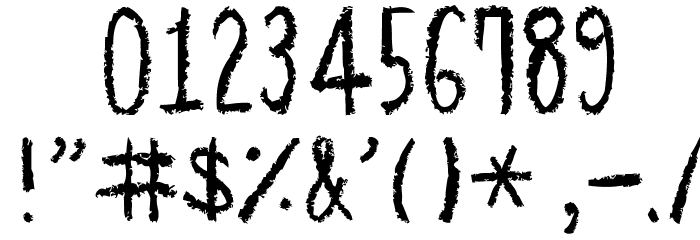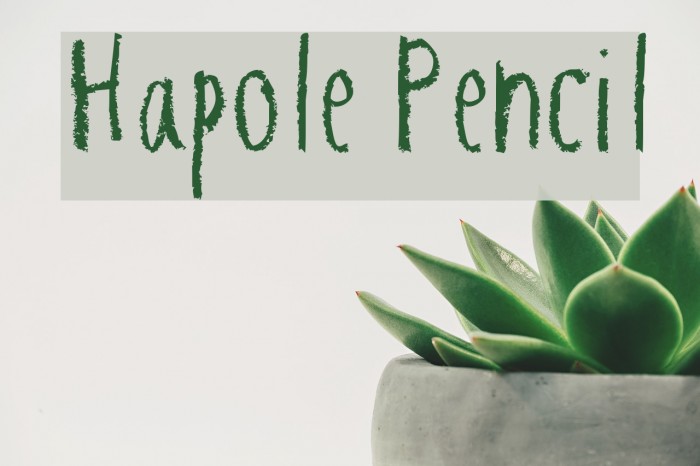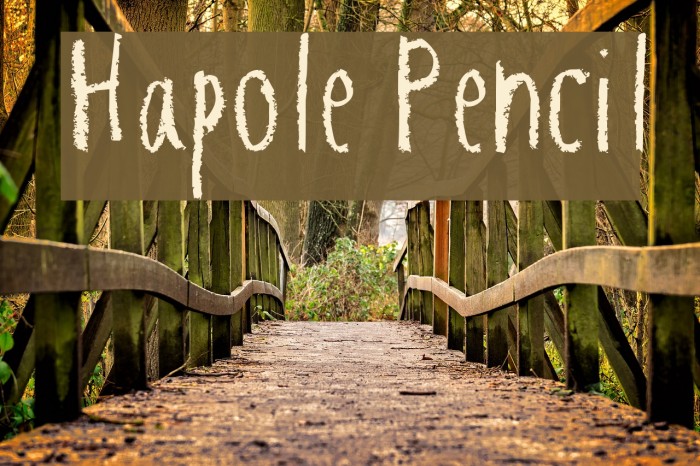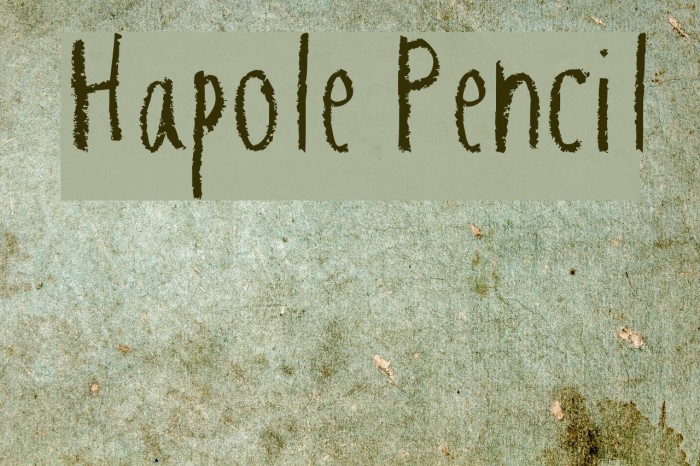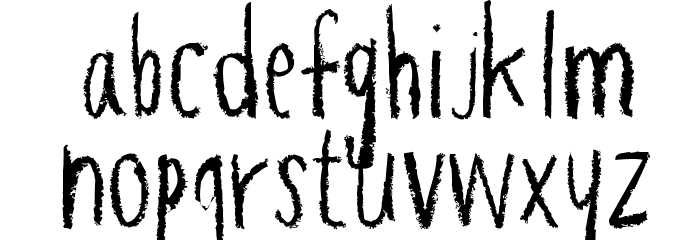
Hapole Pencil Font
Hapole Pencil Description
This font features a hand-drawn, textured style that mimics the look of pencil sketches. Each character has a rough, uneven edge, giving it a casual and artistic appearance. The uppercase and lowercase letters maintain a consistent height, while the numbers and special characters are crafted with the same textured effect. This font exudes a playful and creative vibe, making it ideal for projects that require a personal touch. The irregularities in the strokes add to its charm, making it stand out in any design.
| Overall Style | Casual, Artistic |
| Use Case | Headlines, Creative projects, Informal designs |
| Proposed Projects | Ideal for art projects, children's books, creative posters, and informal branding. |